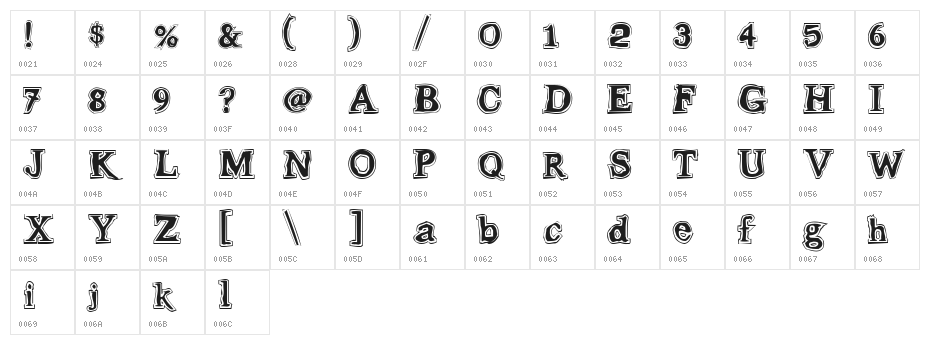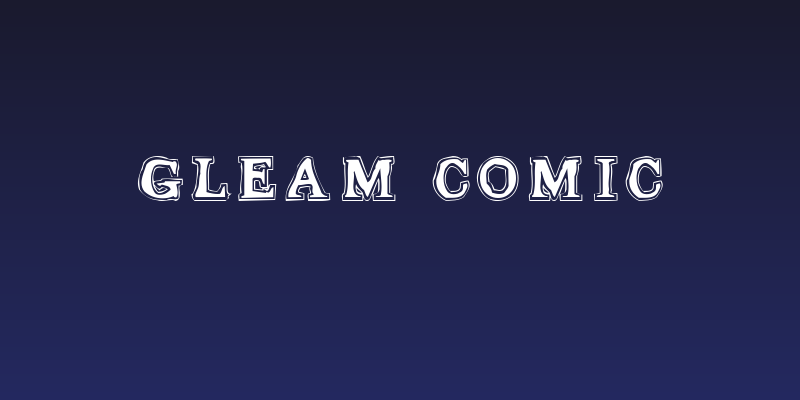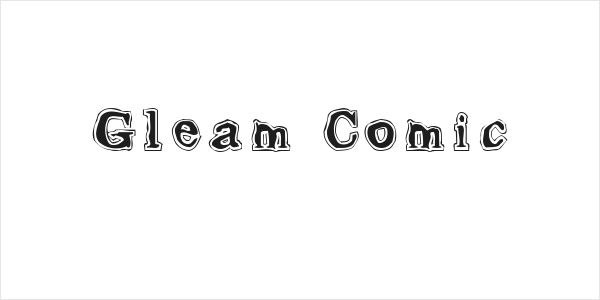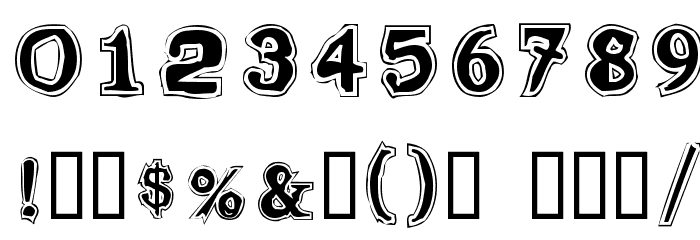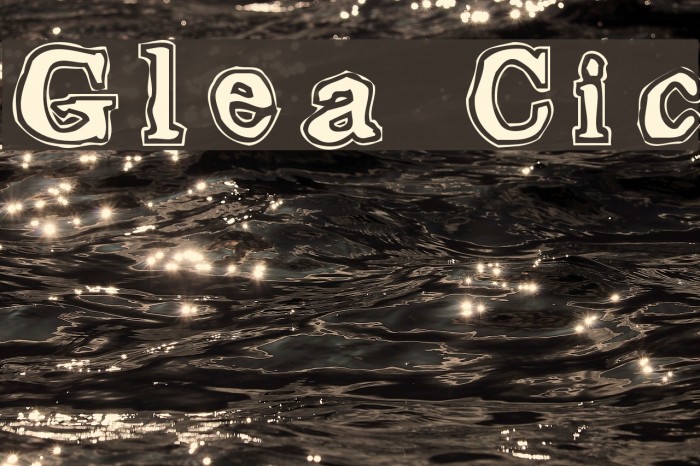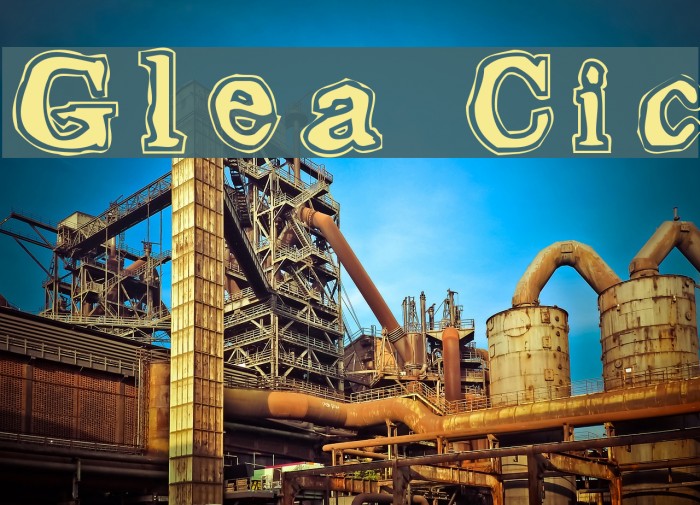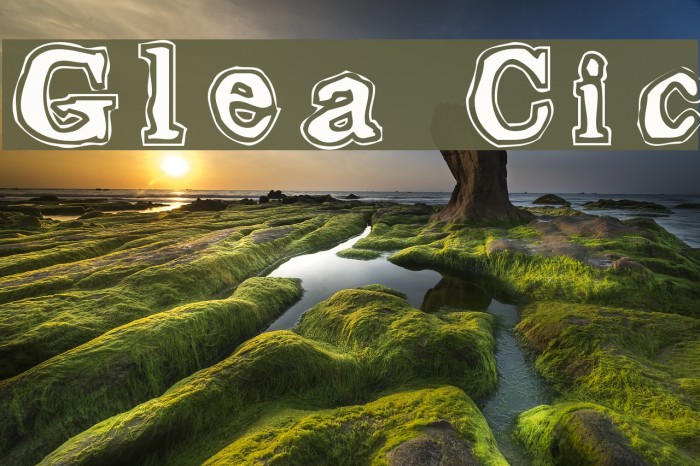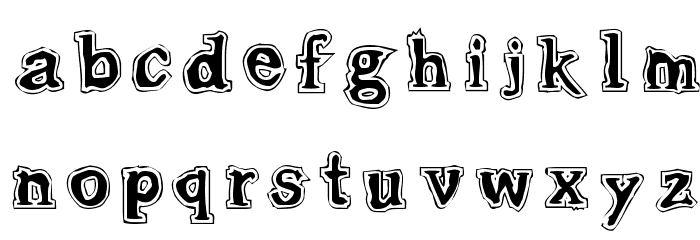
Gleam Comic Font
Gleam Comic Description
This font features a playful and bold comic style with a three-dimensional effect. The letters are outlined with a thick black border, giving them a shadowed appearance that adds depth and character. The strokes are uneven, with a hand-drawn quality that enhances its whimsical and informal nature. The uppercase and lowercase letters maintain a consistent style, while the numerals and special characters complement the overall design. This font is perfect for projects that require a fun and engaging look.
| Overall Style | Playful, Comic |
| Use Case | Headlines, Posters, Branding |
| Proposed Projects | Ideal for comic books, children's books, playful posters, and creative branding projects. |